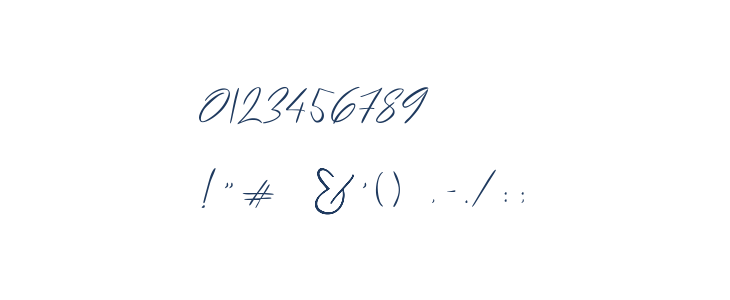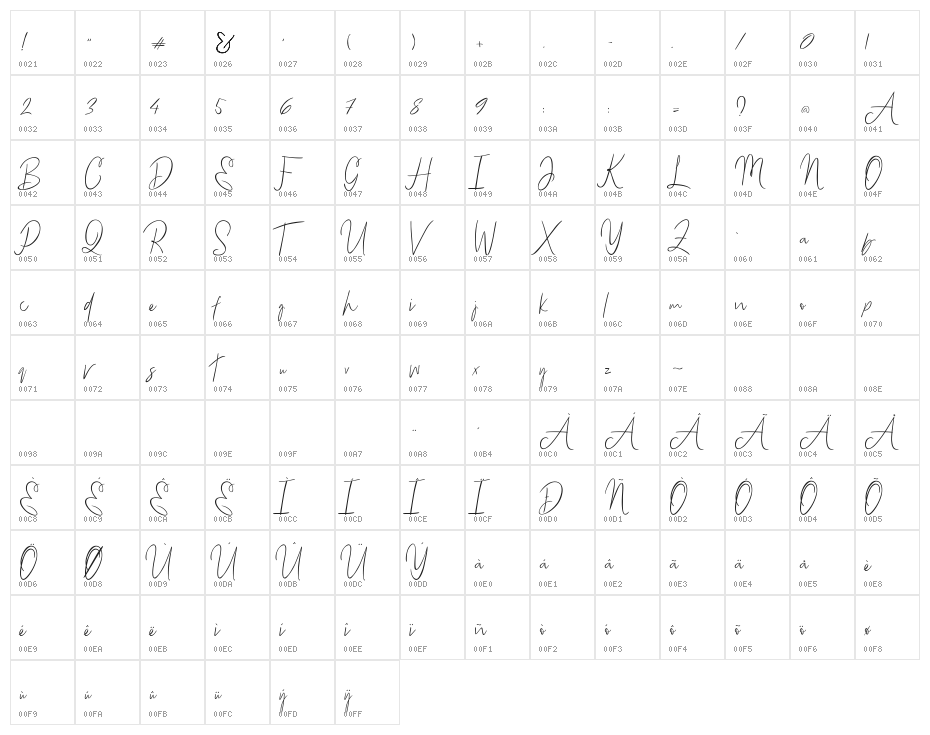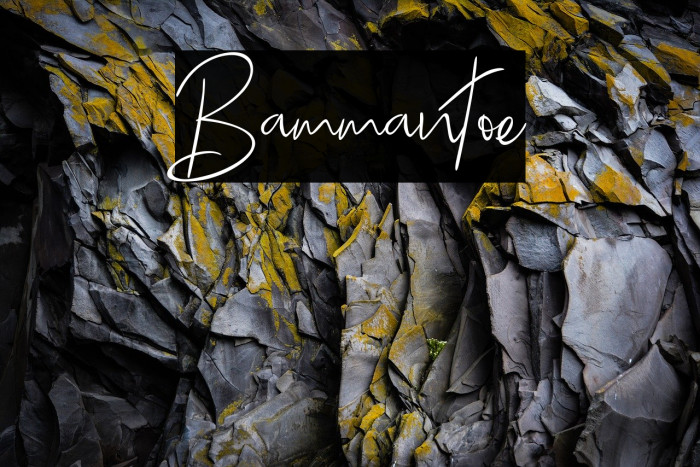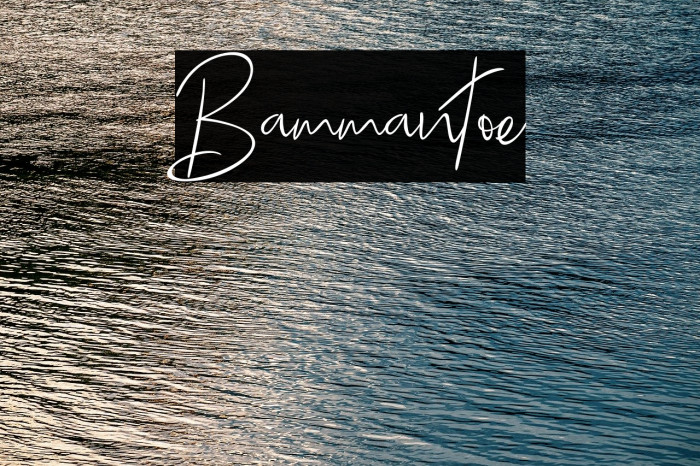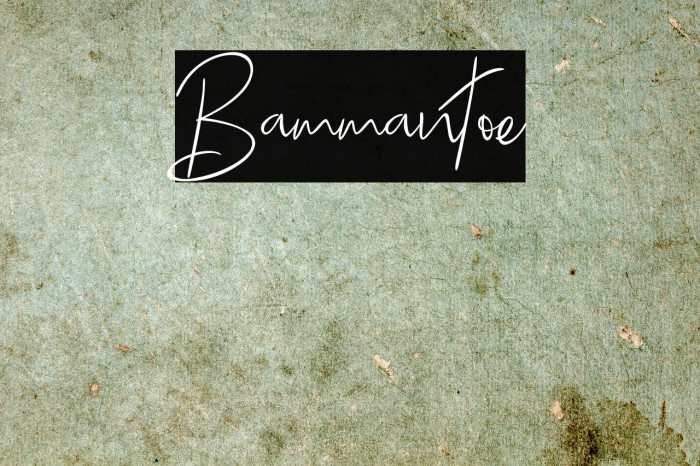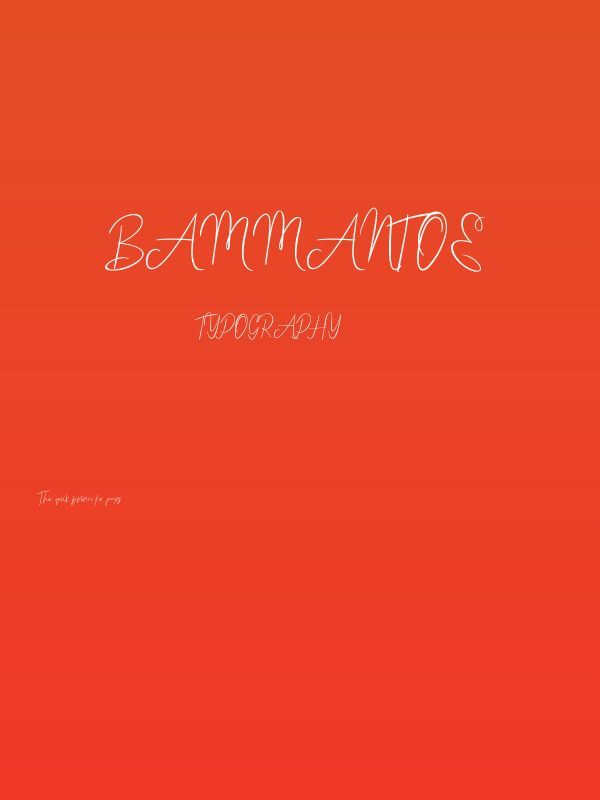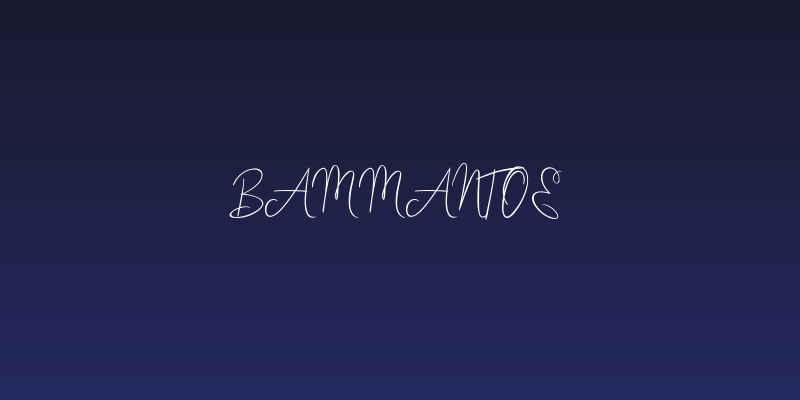
Bammantoe Font
Bammantoe Description
This font exudes a lively and artistic flair, characterized by its flowing, cursive style that mimics the fluidity of natural handwriting. The uppercase letters are elegantly elongated with distinct loops and curves, giving them a sophisticated yet playful appearance. The lowercase letters maintain a consistent rhythm, with some characters featuring unique flourishes that add to the font's charm. The numerals are crafted with a similar attention to detail, ensuring they blend seamlessly with the alphabet. Special characters are thoughtfully designed, maintaining the overall aesthetic. This font is perfect for projects that require a personal touch, such as invitations, greeting cards, or branding materials that aim to convey creativity and elegance.
| Use Case | Headlines, Logos, Artistic projects |
| Proposed Projects | Ideal for invitations, greeting cards, artistic branding, and creative projects. |